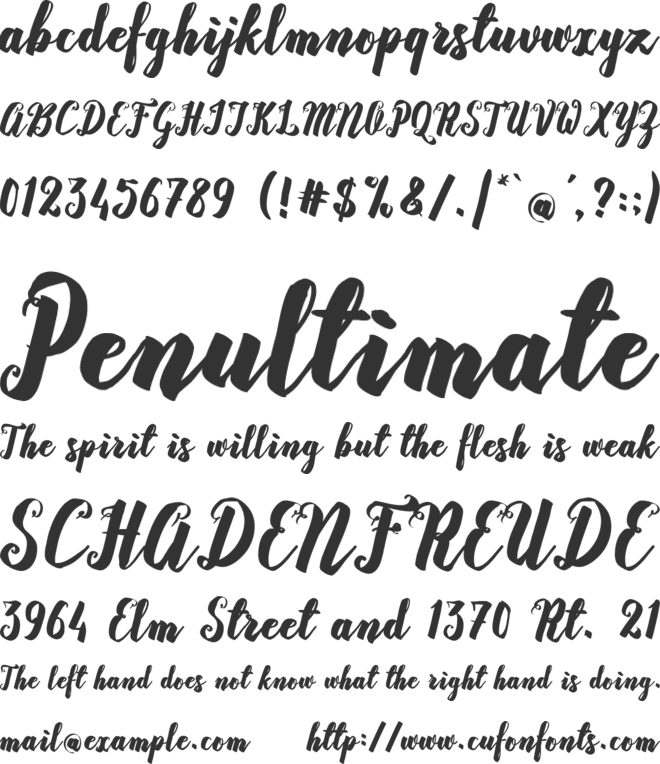
Rasterize Script Font
Introducing my new bold brush script. This script drawn in speed move, so it give unique and natural shape.
Features: - This font have 400 glyphs, with complete Latin and eastern Europe characters. - 105 alternate characters (initial form, final form, swash, and tail alternates). - Featured with PUA encode.